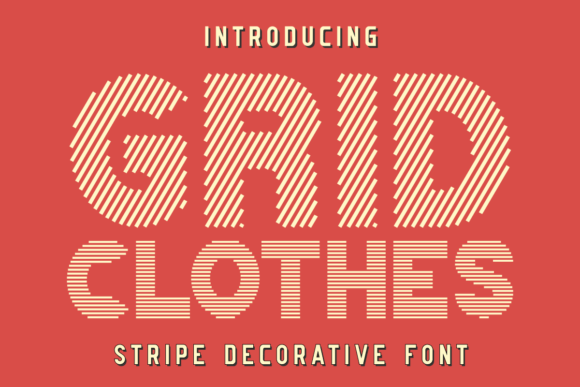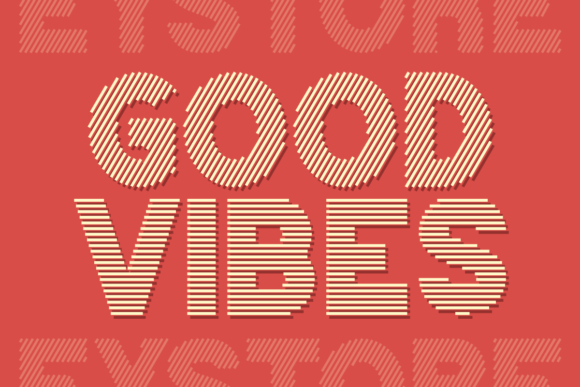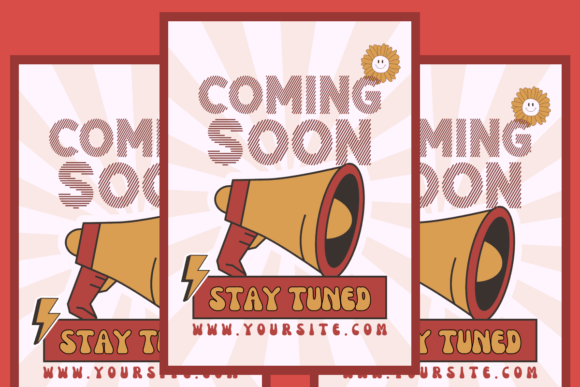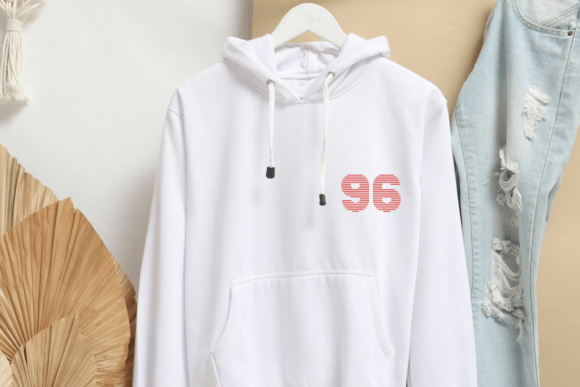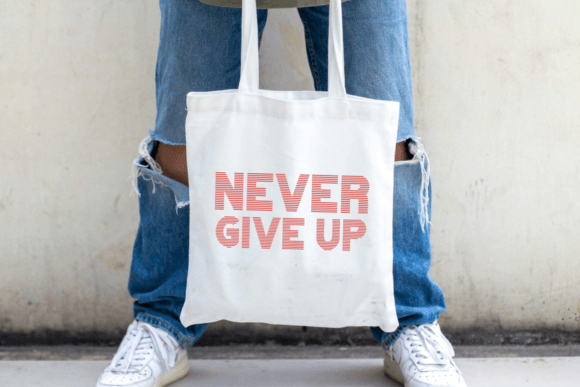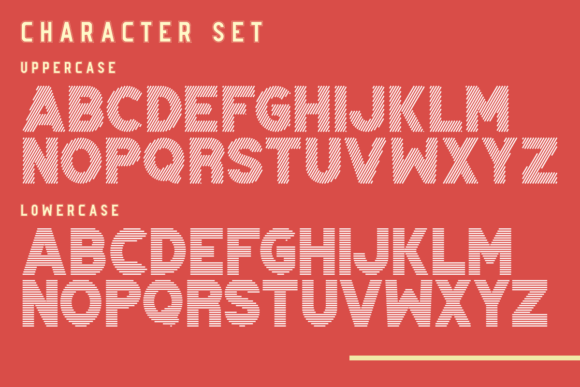
Get Ready to Make a Statement with Grid Clothes Font
Remember that moment when you saw a bold, eye-catching design and thought to yourself, ‘I wish I could create something like that’? For designers, it’s not just about aesthetics; it’s about making a lasting impression. And that’s exactly what Grid Clothes Font is designed to do.
Grid Clothes Font is a unique, striped style decoration font that’s perfect for grabbing attention. Its wide characters make it ideal for headlines, t-shirt typography, banners, product labels, posters, flyers, and much more. Whether you’re working on a project for a fashion brand or a music festival, Grid Clothes Font is a valuable addition to your design toolkit.
Grid Clothes Font Key Features
- Unique Character Set: This font features a unique set of characters, including clothing and fashion-related symbols, making it ideal for designers working on fashion-related projects.
- Font Style: This font comes in a single style, but with multiple weights, including Light, Regular, Bold, and Black, allowing designers to choose the perfect weight for their project.
Grid Clothes Font Review
Overall, I have mixed feelings about Grid Clothes Font. While it has some unique qualities, it also has some limitations that might make it less appealing to some designers.
- The font’s geometric structure gives it a modern and edgy feel, making it perfect for fashion and lifestyle brands.
- The font is highly customizable, with many options for adjusting letter spacing, font size, and color.
- The font’s grid-like structure makes it easy to read, even at small font sizes.
- The font may not be suitable for brands that want a more traditional or classic look.
- The font’s geometric structure can make it difficult to read in certain contexts, such as at very small font sizes or in situations where there is a lot of text.
- The font’s customization options can be overwhelming for some designers, especially those who are new to font design.
I would recommend Grid Clothes Font to designers who are looking for a modern, edgy font for fashion and lifestyle brands. However, I would caution them to carefully consider the potential limitations of the font and make sure it fits their brand’s aesthetic.
Tips: Use the Grid Clothes Font to create a modern and edgy look for your designs. Pair it with bold graphics and bright colors to make a statement.
Tips: Use the Grid Clothes Font to create a bold and eye-catching headline. Experiment with different font sizes and colors to add depth and interest.
Tips: Use the Grid Clothes Font to create a modern and professional look for your presentations and documents. Pair it with clear headings and concise text to make a strong impression.
The Grid Clothes Font is ideal for:
1. Fashion and lifestyle brands.
2. Urban and streetwear designs.
3. Modern and edgy advertising campaigns.
4. Fashion blogs and e-commerce websites.